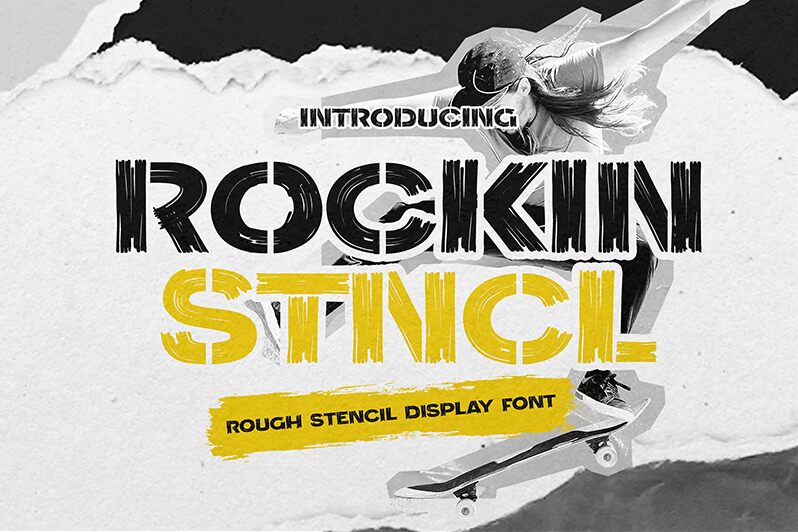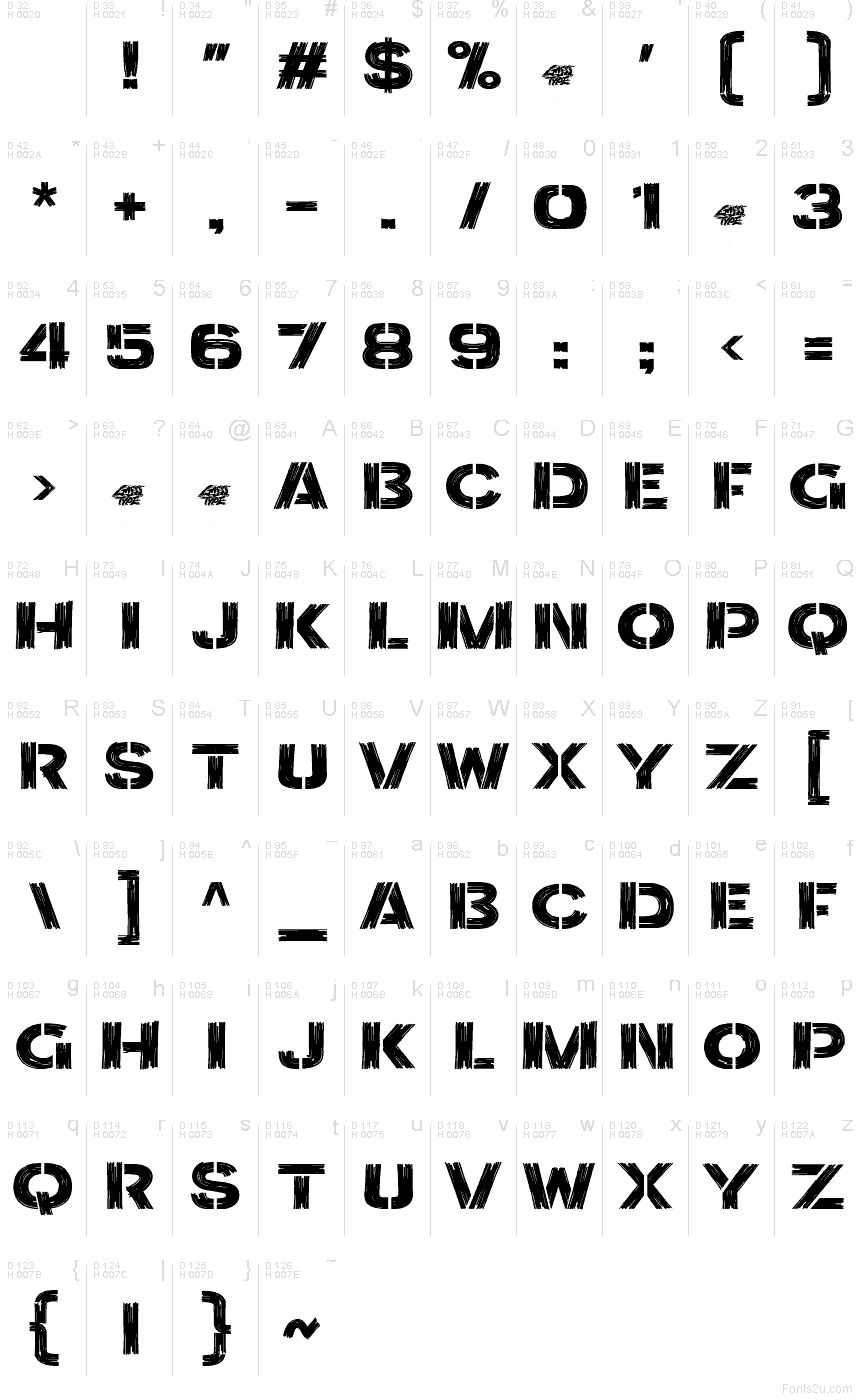
Rockin Stncl
Rockin Stncl by Gassstype Studio is a free brush stencil caps font with a loud, hand-cut energy. The letters look carved from thick paint strokes, with rough vertical scuffs, broken joins, and rounded curves that keep the stencil idea feeling fast and raw rather than military.
It fits music posters, streetwear branding, album covers, event flyers, and title cards where short words need that scraped, restless punch. As a free font, it also works well for bold monograms or drop-in headline moments, because the broken cuts and brushy edges give even a few letters plenty of attitude.